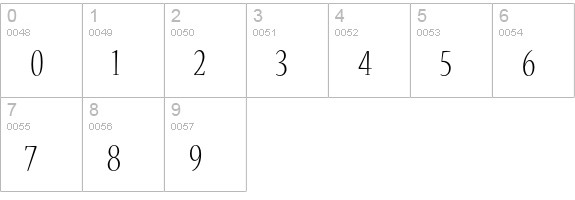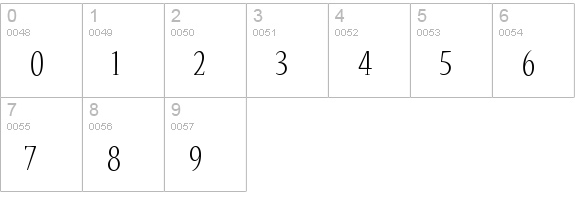
Nueva Std Light Condensed Font Details
Nueva Std Light Condensed is a refined, elegant, condensed-width variant in the Nueva typeface family \xE2\x80\x94 well suited to elegant body text, refined sub-headings, and luxury branding.